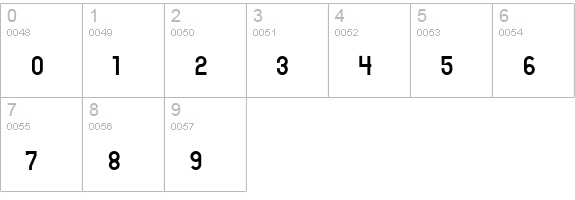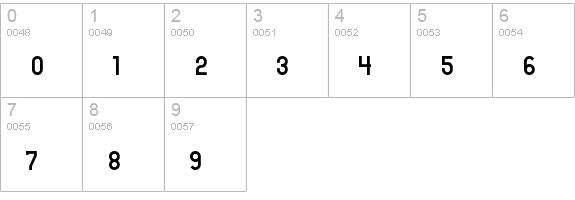
Lady Ice - Small Caps Font Details
Lady Ice - Small Caps font is a stunning and elegant typeface that exudes a sense of sophistication and style. Its delicate and intricate letterforms are meticulously crafted, making it perfect for adding a touch of class to any design project. The small caps version of Lady Ice font offers a unique twist on the traditional uppercase and lowercase letters. With its refined and refined appearance, this font is ideal for creating eye-catching headlines, titles, logos, and more. The smooth and graceful curves of Lady Ice - Small Caps font create a sense of fluidity and movement, adding a dynamic element to your designs. Whether you're designing for print or digital media, this font will captivate your audience and leave a lasting impression. What makes Lady Ice - Small Caps font even more appealing is that it is freely available to download at FontsMarket.com. This means that you can easily access and use this beautiful font in your personal and commercial projects without any limitations. So why wait? Take advantage of the opportunity to enhance your designs with the elegance and charm of Lady Ice - Small Caps font. Download it for free today at FontsMarket.com and elevate your creations to a whole new level of sophistication.